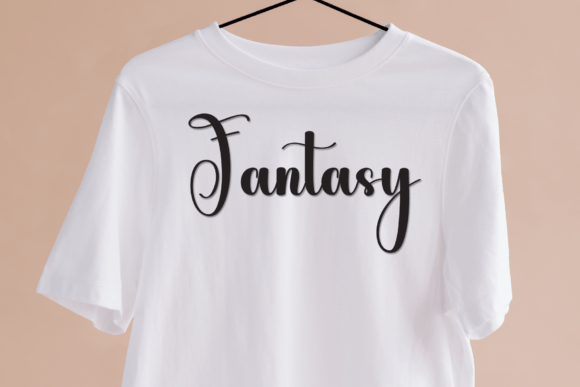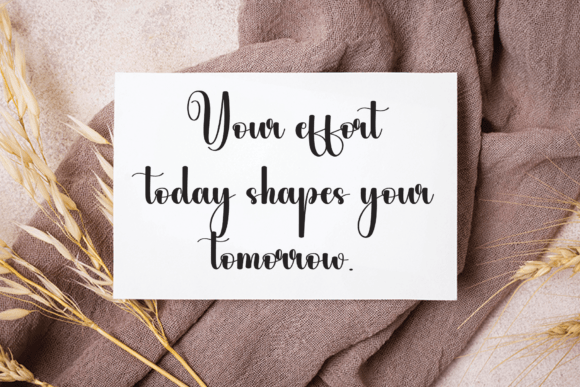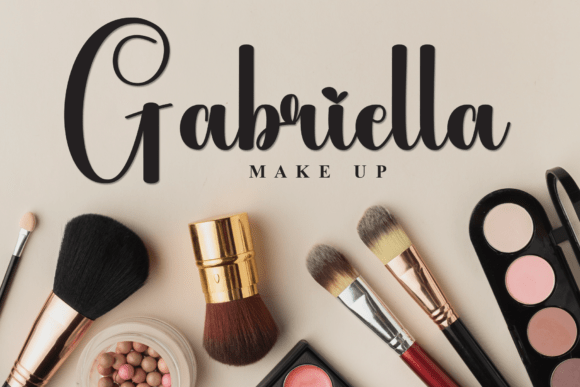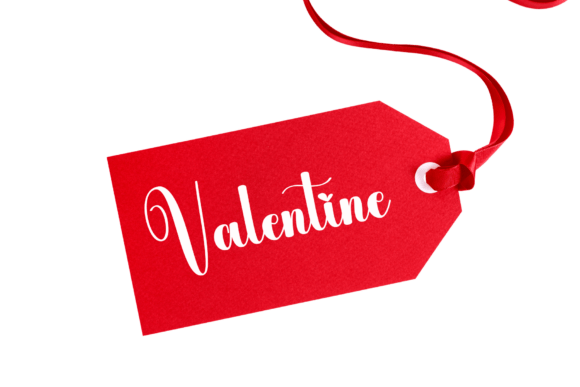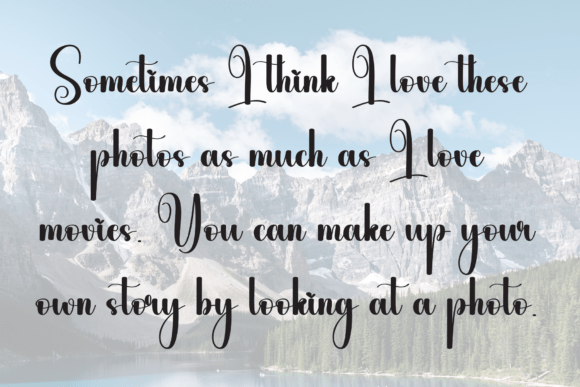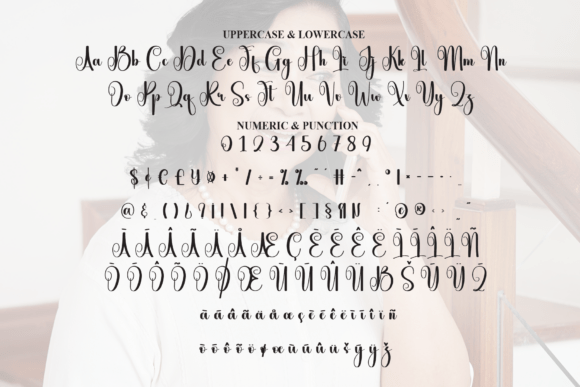
Introducing Aunty Font: Elevate Your Designs with Unique and Creative Typography
Are you tired of using the same old fonts in your designs? Do you want to add a touch of personality and whimsy to your projects? Look no further than Aunty Font, a special creative product designed to give you an extraordinary experience. Our latest style letters are perfect for a wide range of applications, from wall displays and wedding invitations to social media post logos, advertisements, product packaging, and more.
What is Aunty Font?
Aunty Font is a unique and creative font designed to add a touch of elegance and sophistication to your designs. Our font is perfect for designers and crafters who want to create something truly special and eye-catching. With Aunty Font, you can add a personal touch to your projects and make them stand out from the crowd.
What Can I Use Aunty Font For?
The possibilities are endless with Aunty Font! Our font is perfect for:
- Wall displays and signage
- Social media post logos and graphics
- Advertisements and marketing materials
- Product packaging and design
- Labels and branding
- Photography and watermarks
- Stationery and letterheads
- Any project that requires tasteful handwriting
Why Choose Aunty Font?
There are many reasons why Aunty Font is the perfect choice for designers and crafters:
- Unique and creative design: Our font is designed to be eye-catching and unique, adding a touch of personality to your projects.
- Versatile: Aunty Font can be used for a wide range of applications, from digital to print.
- High-quality: Our font is designed to be high-quality and professional, making it perfect for commercial use.